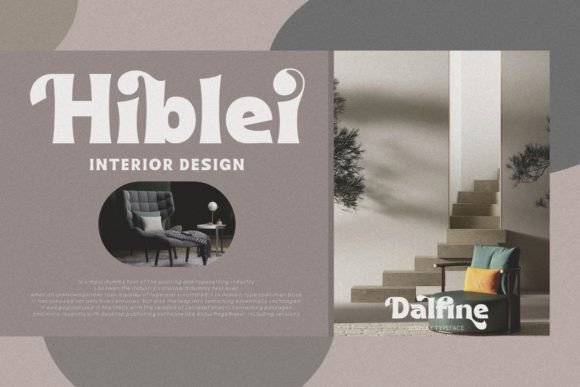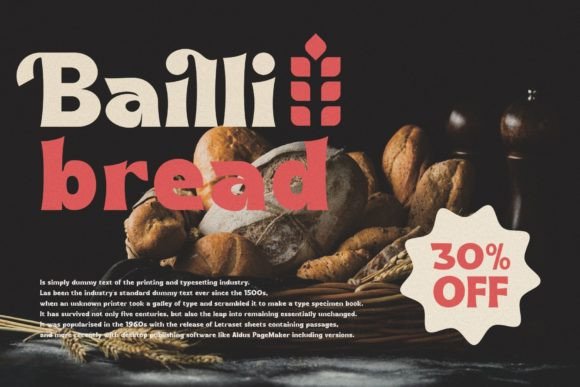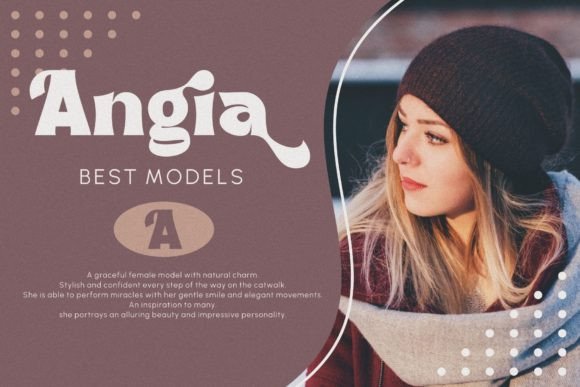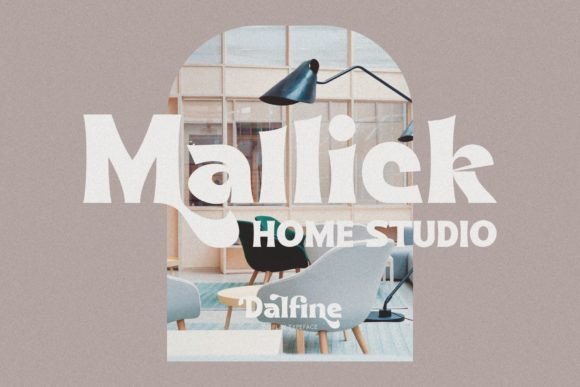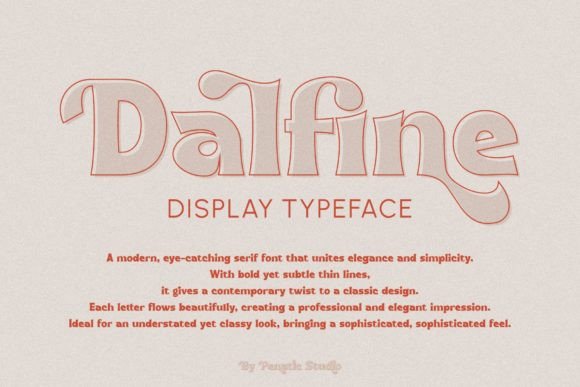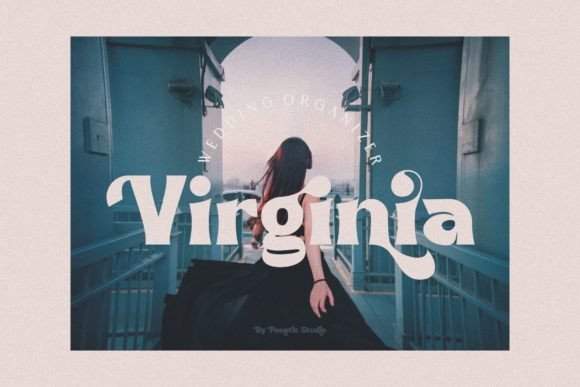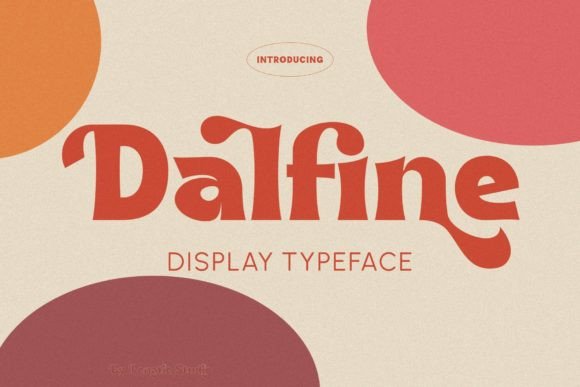
Unleash the Power of Dalfine Font: A Bold Display Serif for Stunning Designs
In the world of typography, fonts play a crucial role in conveying messages, evoking emotions, and creating visual impact. For designers and crafters looking to make a statement, Dalfine Font is an exceptional choice. This bold display serif font is designed to grab attention, create a strong impression, and leave a lasting impact. In this article, we’ll dive into the features, benefits, and uses of Dalfine Font, and explore how it can elevate your designs to the next level.
The Distinctive Characteristics of Dalfine Font
Dalfine Font is a bold display serif font that exudes confidence and boldness. Its thick and bold lines create a strong and impressive impression, making it perfect for titles, posters, and display designs that require great visual appeal. Each letter is carefully crafted to stand out, with a unique blend of modern and classic elements. The serif details add a touch of sophistication, while the bold lines ensure that the font remains attention-grabbing and impactful.
Key Features of Dalfine Font
- Bold and Attention-Grabbing: Dalfine Font is designed to grab attention with its bold and thick lines, making it perfect for headlines, titles, and display designs.
- Sophisticated Serif Details: The serif details add a touch of elegance and sophistication, making Dalfine Font suitable for a wide range of design applications.
- Strong and Impressive: The font’s bold lines create a strong and impressive impression, making it ideal for designs that require a bold statement.
- Versatile: Dalfine Font can be used for various design projects, including posters, flyers, brochures, titles, and more.
Benefits of Using Dalfine Font
Using Dalfine Font in your designs offers several benefits, including:
- Instant Attention: The font’s bold and attention-grabbing design ensures that your message gets noticed instantly.
- Professional Look: Dalfine Font’s sophisticated serif details and bold lines create a professional and polished look, perfect for businesses and brands.
- Flexibility: The font’s versatility makes it suitable for various design applications, from print to digital media.
- Emotional Connection: Dalfine Font’s bold and confident design can evoke emotions and create a strong connection with your audience.
Design Applications for Dalfine Font
Dalfine Font is a versatile font that can be used for various design projects, including:
- Posters and Flyers: Create eye-catching posters and flyers that grab attention and convey your message effectively.
- Logos and Branding: Use Dalfine Font to create bold and memorable logos that make a lasting impression.
- Headlines and Titles: Add a touch of sophistication and elegance to your headlines and titles with Dalfine Font.
- Packaging Design: Create stunning packaging designs that stand out on store shelves with Dalfine Font.
Tips for Using Dalfine Font Effectively
To get the most out of Dalfine Font, follow these tips:
- Use it Sparingly: Use Dalfine Font for headlines, titles, and key messages to avoid overwhelming your design.
- Pair it with Other Fonts: Combine Dalfine Font with other fonts to create visual interest and add depth to your design.
- Experiment with Colors: Try different colors and textures to add an extra layer of creativity to your design.
| Author | Penatic Studio |
Dalfine Font is a bold display serif font that’s designed to make a statement. Its thick and bold lines, sophisticated serif details, and versatility make it an excellent choice for designers and crafters looking to create stunning designs. By understanding the features, benefits, and uses of Dalfine Font, you can unlock its full potential and take your designs to the next level. So, why settle for ordinary fonts when you can make a bold statement with Dalfine Font?